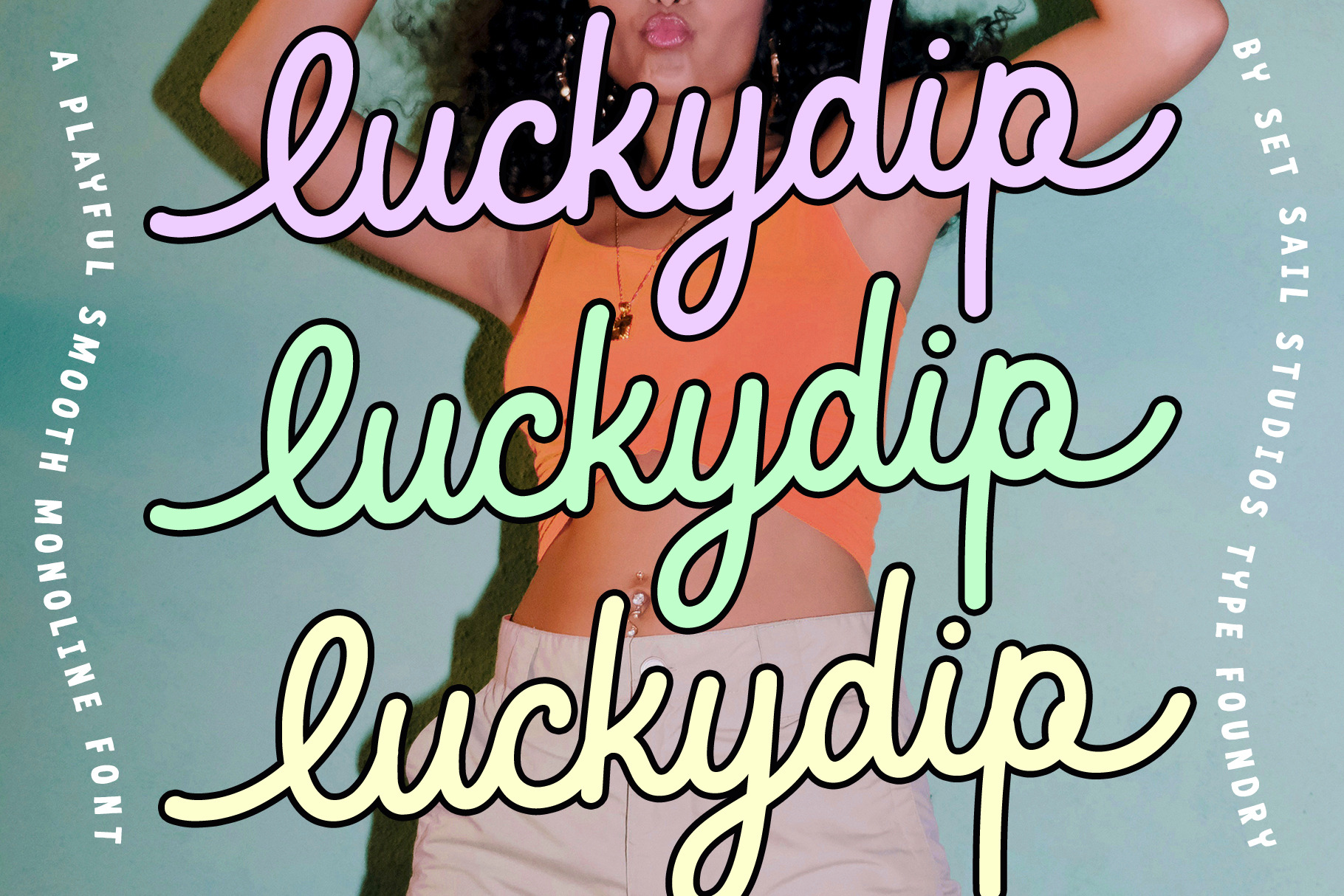
Luckydip Smooth Script Font
Introducing the Luckydip Script Font! A smooth, playful and connected monoline font, designed for fresh on-trend brands and creators. Luckydip is provided as a single font file with added features, including alternate beginning and end swashes for each lowercase characters, plus 4 underline swashes.